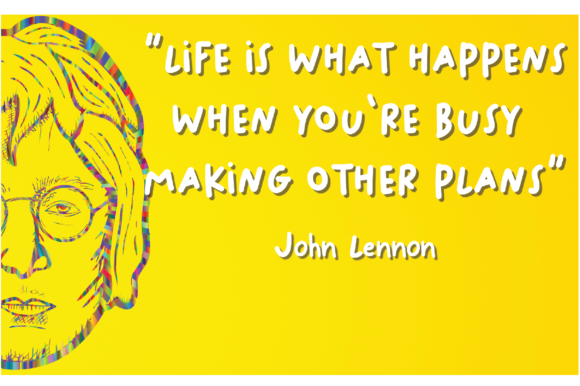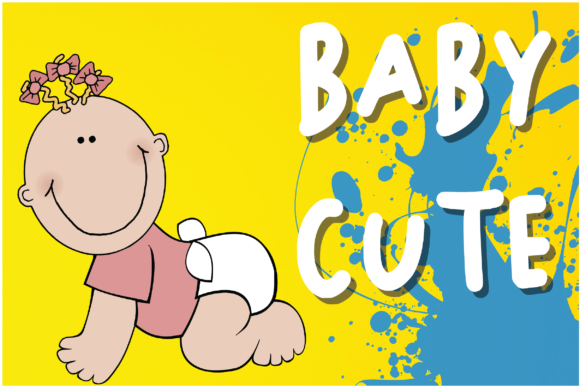
Stay Work Font
db-ku.com - Script & Handwritten -- Stay Work is a simple, clean and adaptable handwritten font. It is perfect for product packaging, branding project, magazine covers, social media, wedding, or just used to express words above the background.